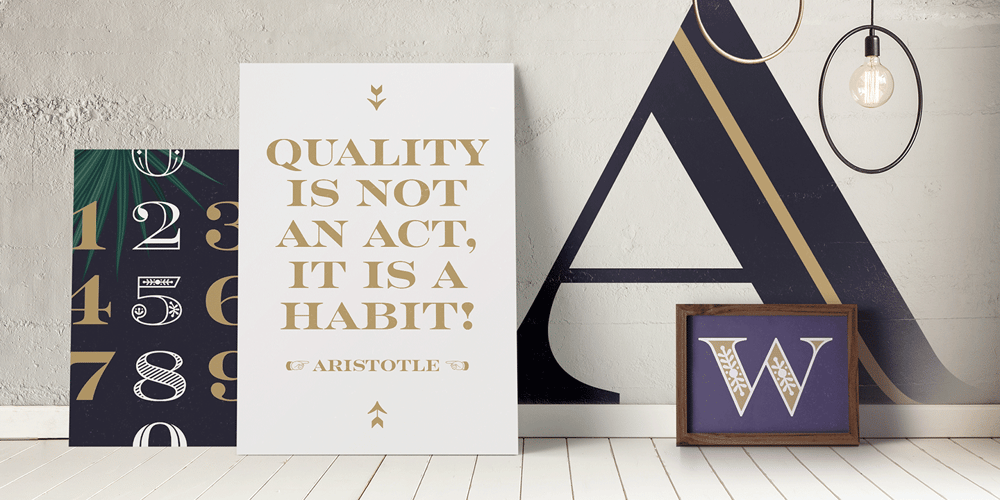
Rosella Font Family was designed by Sabina Chipară and published by Monotype. Rosella contains 6 styles and family package options. The Rosella™ family, by Sabina Chipară, is an elegant and playful suite of typefaces that are ideal for book covers, social announcements, packaging and posters. Inspired by late 19th century engravers typefaces that mimic the delicate and ornate hairlines of steel and copperplate engraving, the family’s foundation is built on the dramatic Solid design and then expands to Deco, Engraved, Flourish, Hatched and Inline styles. Rosella also takes to color like the beautiful Australian parrot it is named after. Words set in the typeface come alive when vibrant colors, or tinted backgrounds become part of their plumage. While modern as today, the design also has a quiet antique vibe that brings an understated refinement to a variety of hardcopy projects. Rosella is a typeface for those times you need a design that stands out from the crowd – but with grace and composure.